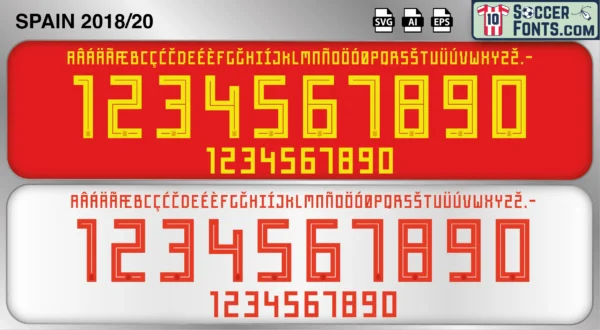
Spain 2018-20 Font
The Spain 2018-20 font is an editable soccer jersey lettering design in vector format inspired by the Spain kit style used during the 2018-20 football seasons. This football font artwork is prepared for football shirt recreations, custom jersey projects, football kit mockups and sports graphic design workflows.
The 2018-20 period marked the beginning of a new chapter for the Spanish national team following the conclusion of the generation that dominated international football between 2008 and 2012. Spain entered a rebuilding phase centered around a talented group of players including Sergio Ramos, Sergio Busquets, Thiago Alcântara, Dani Carvajal, Jordi Alba and emerging stars such as Rodri, Mikel Oyarzabal and Dani Olmo. Under new leadership, the national team sought to combine its traditional possession-based philosophy with a younger and more dynamic squad capable of competing at the highest level of international football. During this era, Spain also began preparations for UEFA EURO 2020 while continuing to introduce the next generation of international talent.
The Spain 2018-20 font became associated with the transition toward a new era and the gradual emergence of players who would shape the national team throughout the 2020s. Spain shirts from this period remain recognizable among football shirt collectors because of their connection with Sergio Ramos’ later international years and the development of a new generation preparing to represent one of football’s most successful nations. The Spain 2018-20 font reflects a period of renewal, adaptation and long-term planning as Spain worked to build a competitive future while preserving the football identity that made the national team one of the most influential forces in modern football history.